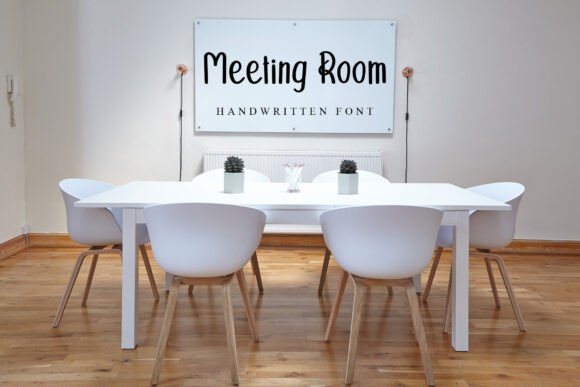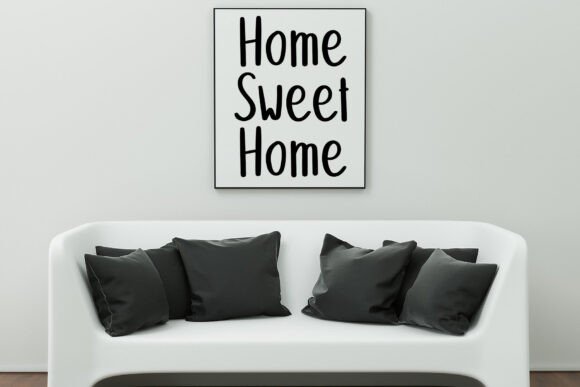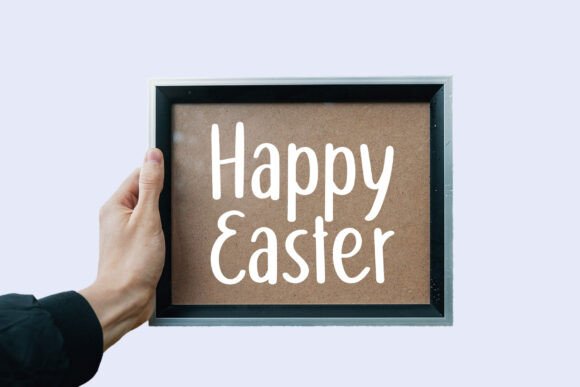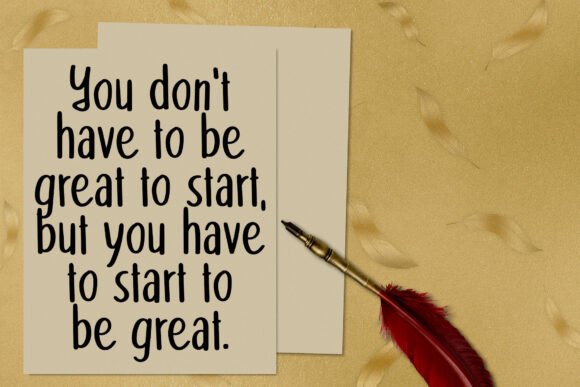
Introduction to Charistha Font
Charistha is a lovely and timeless handwritten font.
Key Features of Charistha Font
Why Choose Charistha Font?
Charistha Font offers exceptional quality and versatility, making it a valuable addition to your design toolkit. Whether you’re creating for personal projects or commercial use, Charistha Font delivers professional results.